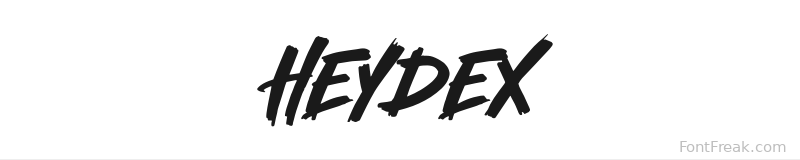
Heydex
The Heydex font by Syaf Rizal is a striking display typeface that perfectly balances boldness and style. As a contemporary script font, it boasts an energetic and artistic flair, making it ideal for a variety of creative projects. The visual characteristics of Heydex include bold strokes combined with a dynamic brush-like texture, giving it a handcrafted feel. The strokes display a moderate contrast, enhancing readability while maintaining an engaging visual appeal. Its spacious letterforms provide clarity and legibility, allowing it to stand out in any design context.
This font is particularly well-suited for use cases such as wedding invitations, where its artistic charm adds a personal touch. It can also elevate movie posters, lending a sense of excitement and drama to titles. Restaurant menus can benefit from the inviting aesthetic of Heydex, enticing patrons with its unique flavor. Additionally, it serves well in marketing materials for small businesses, helping to create a memorable brand identity. Graphic designers seeking to inject creativity into their projects will find this font to be a valuable asset.
The target audience for the Heydex font includes graphic designers, small business owners, and content creators who desire to make a lasting impression with their visuals. The versatility of this font allows it to adapt to various design needs, making it a go-to choice for anyone looking to enhance their work.
What sets the Heydex font apart is its ability to combine artistry with functionality. Its unique brush script style not only captivates the eye but also conveys a sense of authenticity, making it a fantastic choice for those looking to create standout designs. For those interested, the Heydex font free download is readily available, inviting you to explore its creative potential in your next project.